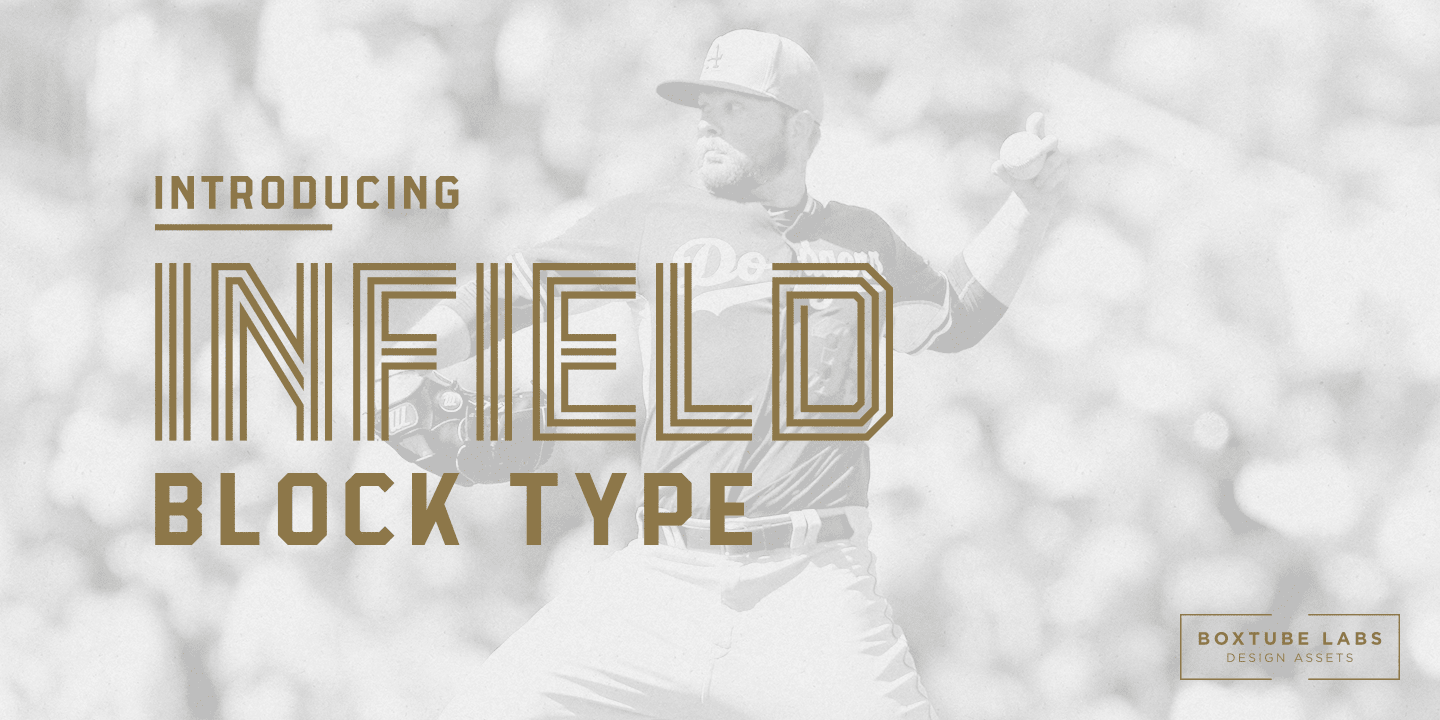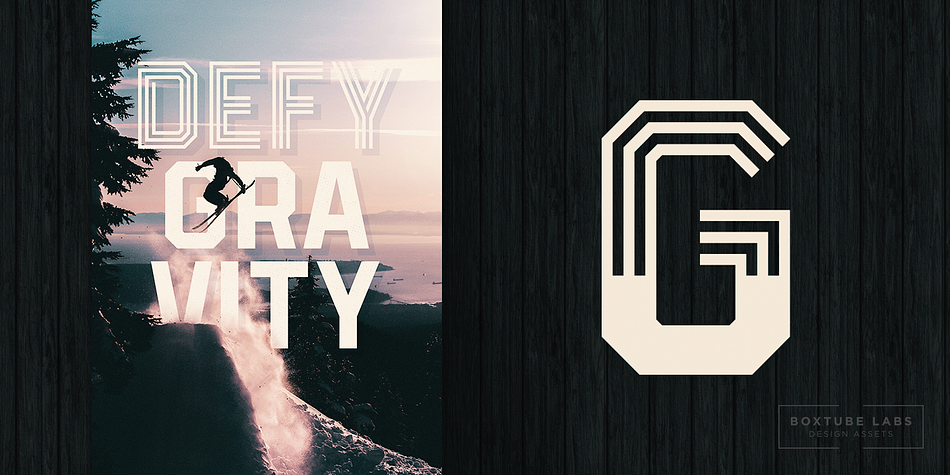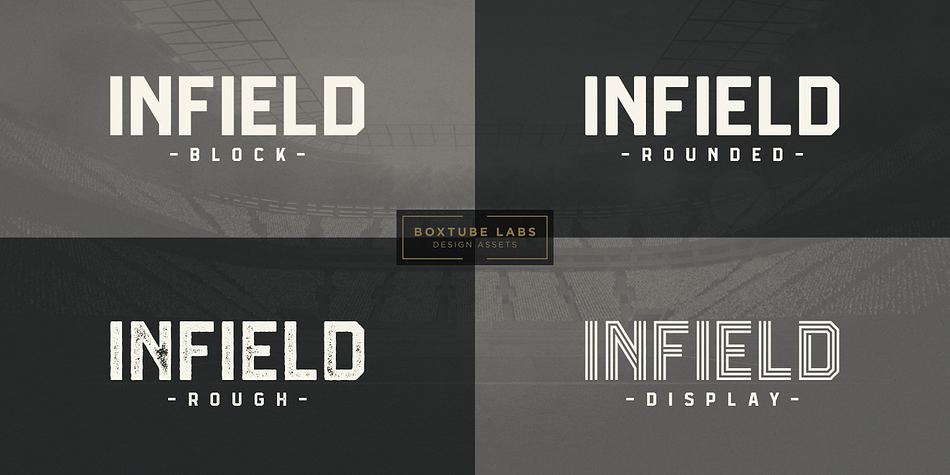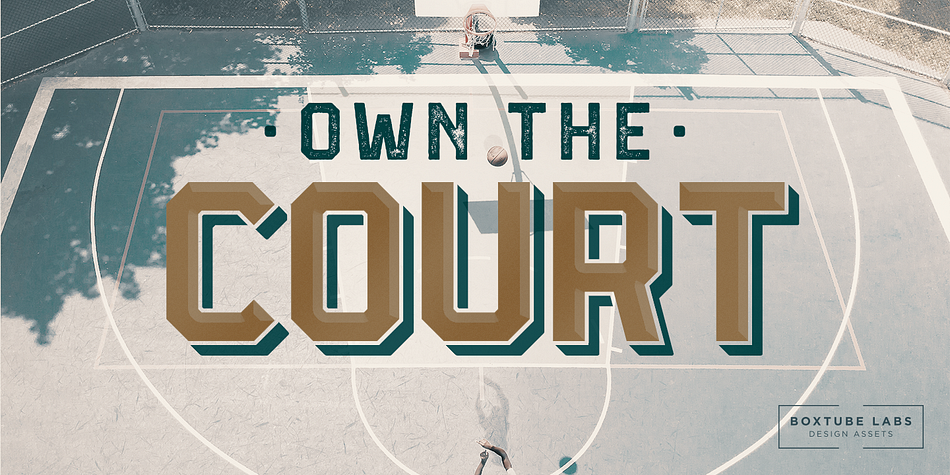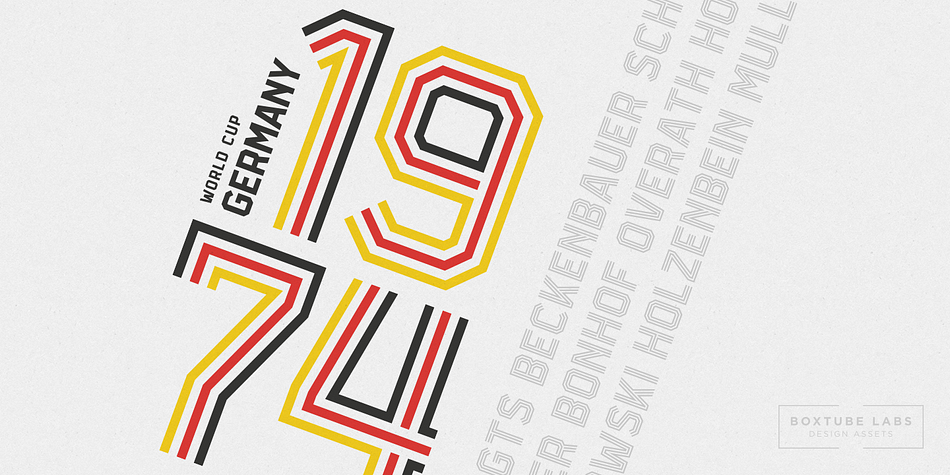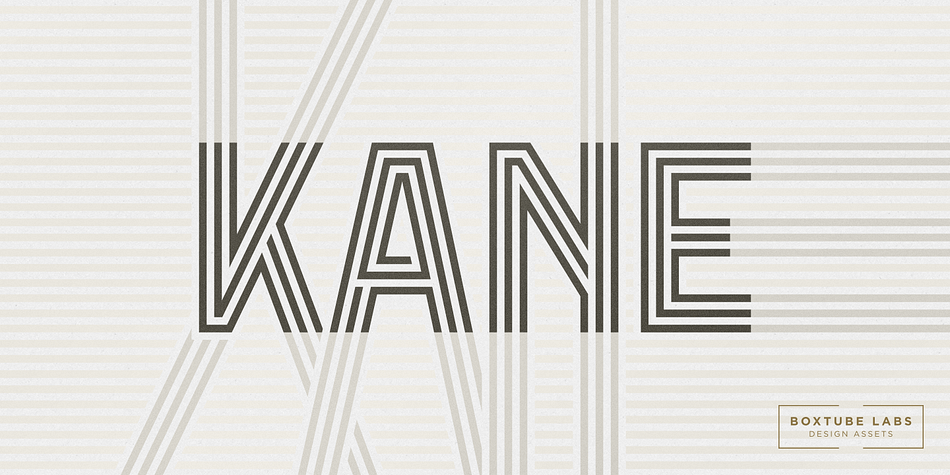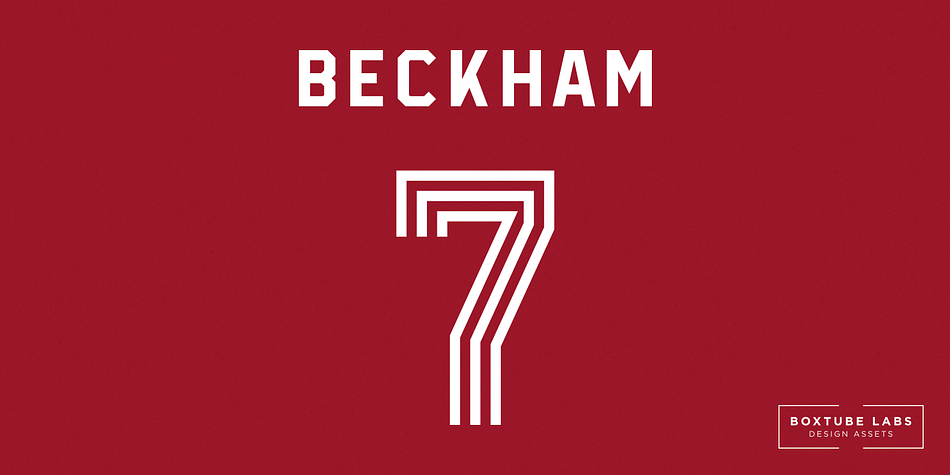
INFIELD
Infield is a display sans font family. This typeface has four styles and was published by BoxTube Labs.
Infield is a modern and edgy athletic font family with four creative styles for added flexibility in your design workflow. It’s perfect for sports logos, branding, posters, apparel design with it’s bold and confident appearance. The upper- and lowercase vintage characters of Infield Rough comes with different renders to add authenticity and a more natural look.